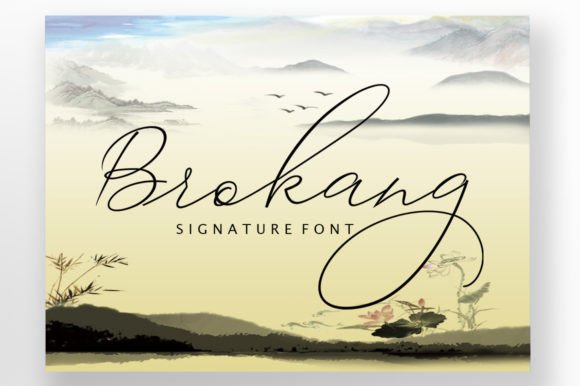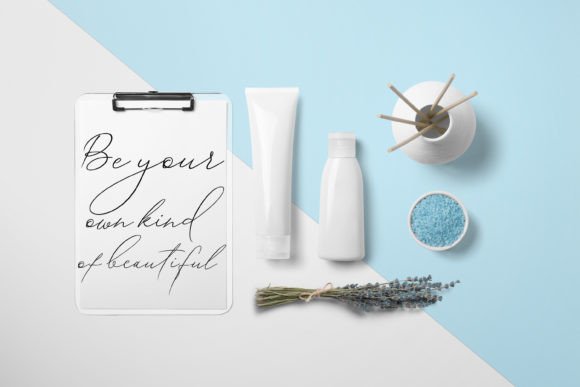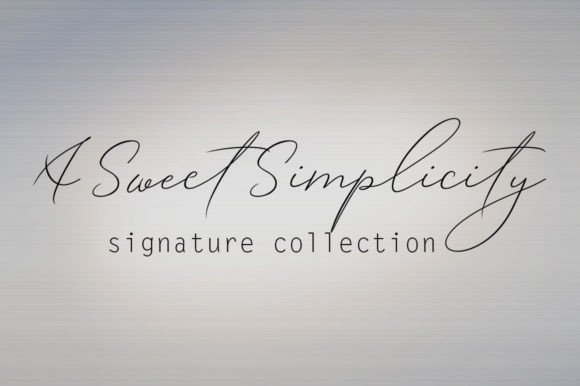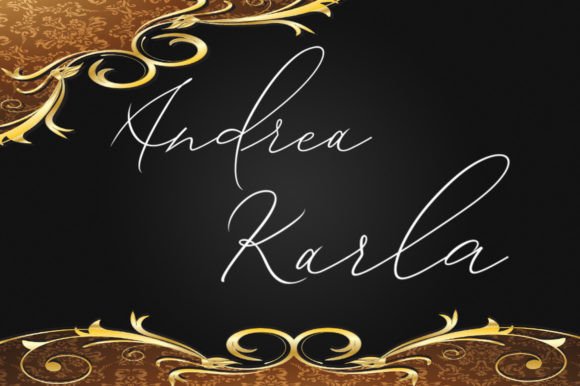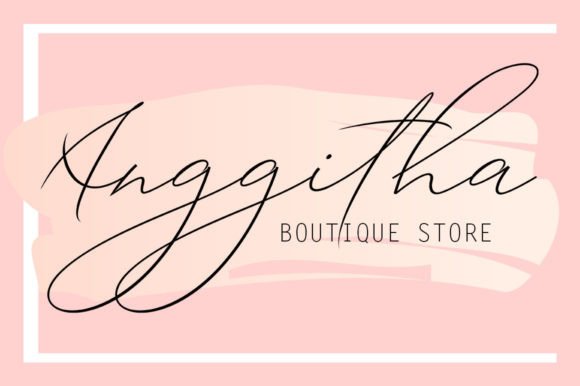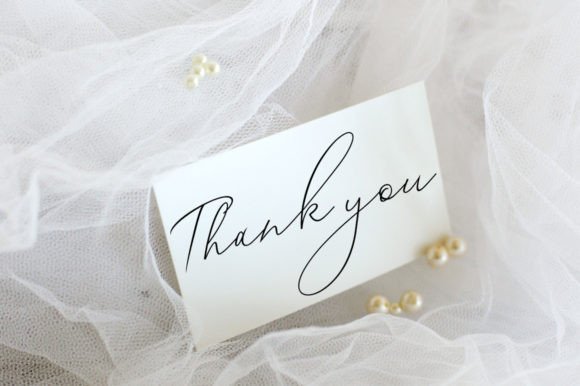
Brokang Font
About Brokang Font
“Brokang” emerges as a font with modern handwritten letters, characterized by a signature style and swift strokes. Tailored for versatility, it is an ideal choice for a range of creative projects including greeting cards, branding materials, business cards, quotes, posters, and more. The font’s PUA encoding facilitates easy access to its extensive set of glyphs and swashes, adding convenience for designers seeking a dynamic and expressive typeface.
The signature style of “Brokang” brings a personal and distinctive touch to written text. This quality makes it particularly well-suited for projects that aim to convey a sense of individuality and uniqueness.
The swift strokes and modern design contribute to the font’s adaptability. Whether used in branding materials, business cards, or posters, “Brokang” brings a contemporary and stylish feel to the visual composition.
For greeting cards and quotes, the font’s handwritten charm adds warmth and authenticity, enhancing the overall sentiment and visual appeal of the text.
The PUA encoding of “Brokang” is a practical feature, ensuring seamless access to its full range of glyphs and swashes. This encoding simplifies the design process, allowing designers to easily navigate and incorporate various elements into their projects.
In summary, “Brokang” stands out as a modern and expressive handwritten font with a signature style and swift strokes. Its versatility makes it a valuable asset for designers working on a variety of projects, from branding materials to greeting cards. The PUA encoding enhances accessibility, making it convenient for designers to fully explore and utilize the font’s creative potential.